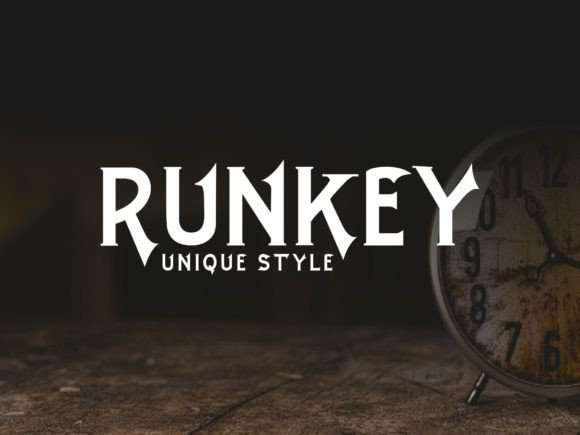
Discover Runkey Font, the epitome of creativity and style, a display font crafted for the bold and visionary. Its unique spooky and vintage charm will cast a spell on your designs, leaving a lasting impression on your audience.
Unleash the magic of Runkey Font and watch your designs transform into captivating masterpieces. From logos that exude authority to social media posts that pop, this font is the secret ingredient you've been searching for.
Step into a world of enchantment with Runkey Font. Its intricate details and flowing curves will leave your audience spellbound. Whether you're crafting brochures that demand attention or magazines that inspire, this font will make your words dance off the page.
With Runkey Font, your designs will transcend the ordinary and enter the realm of the extraordinary. Experience the thrill of creating designs that resonate with your audience, leaving them enchanted and eager for more.